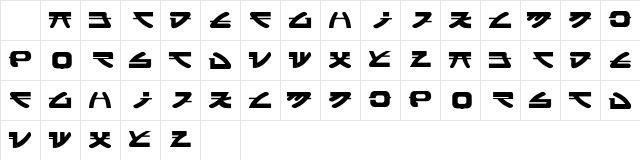
Complete Itsukushima Katana Regular glyph index. Displaying only characters natively supported by Itsukushima Katana Regular font.
Itsukushima Katana is a composed and adaptable typeface that performs quietly and consistently across a wide range of design contexts.